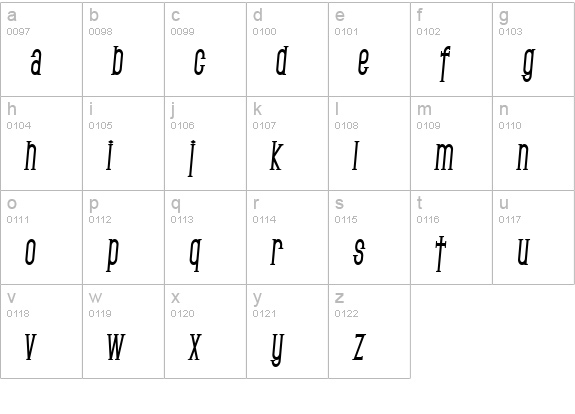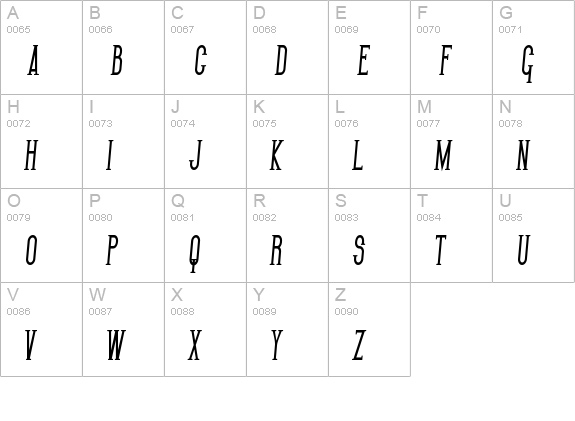
SF Gothican Condensed Bold Italic Font Details
SF Gothican Condensed Bold Italic is a strong, high-contrast, condensed-width, italic variant in the SF typeface family \xE2\x80\x94 well suited to headlines, attention-grabbing titles, and strong calls-to-action.
SF Gothican Condensed Bold Italic is a captivating and striking font that effortlessly combines the eerie allure of gothic aesthetics with a modern twist. This font exudes a sense of mystery and sophistication, making it perfect for projects that require a touch of darkness and elegance. The condensed design of SF Gothican Condensed Bold Italic adds a sense of urgency and intensity to any text it graces, making it ideal for headlines, titles, and branding materials. Its bold and italicized nature adds emphasis and drama, creating a visual impact that is sure to capture attention. What sets SF Gothican Condensed Bold Italic apart is not only its visually stunning appearance but also its accessibility. This font is freely available to download at FontsMarket.com, allowing designers, creatives, and enthusiasts alike to effortlessly incorporate it into their projects without any limitations. Its availability as a free font ensures that creativity knows no bounds, and that anyone can bring their vision to life with this captivating typeface. Whether you're designing a poster, creating a logo, or crafting an invitation, SF Gothican Condensed Bold Italic is the go-to font for adding a touch of gothic elegance. Its bold and condensed italicized form, combined with its availability as a free download, makes it an essential tool for any designer looking to make a statement. Embrace the darkness and unleash your creativity with SF Gothican Condensed Bold Italic.